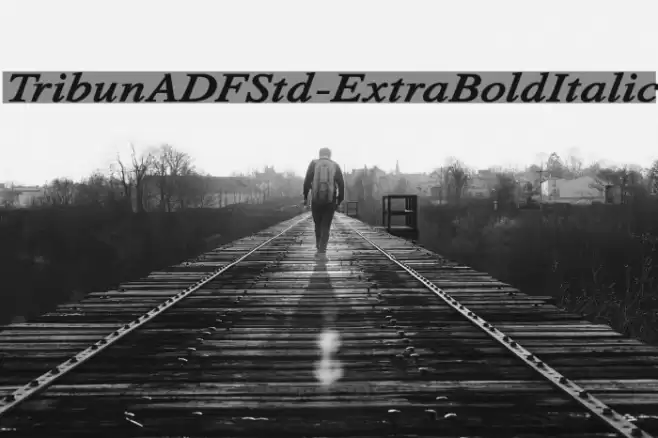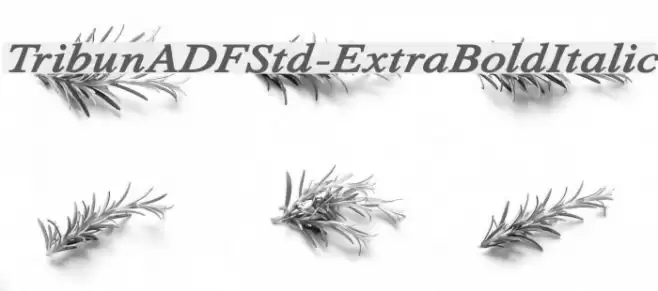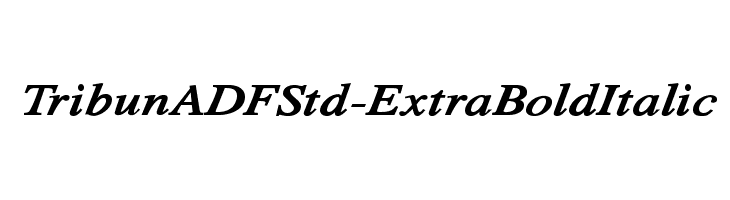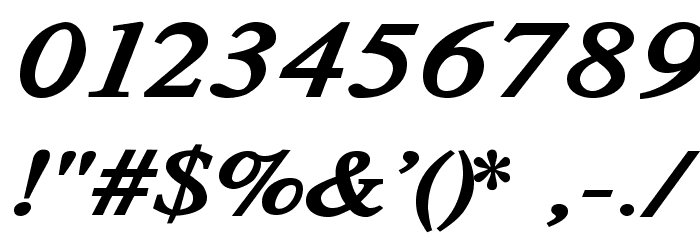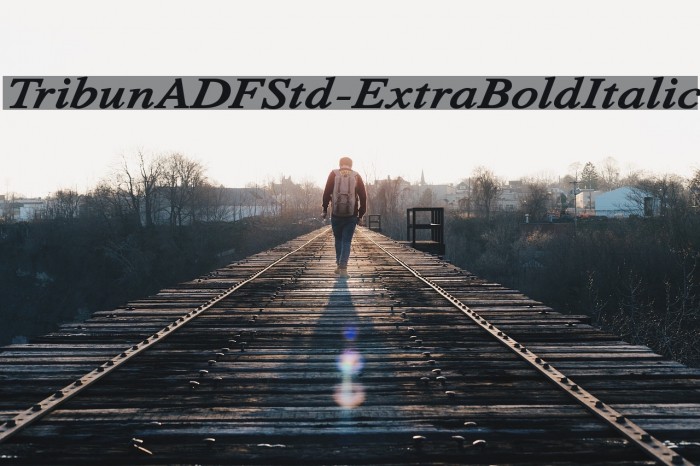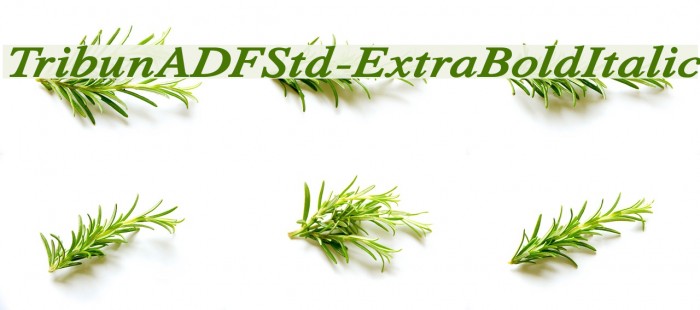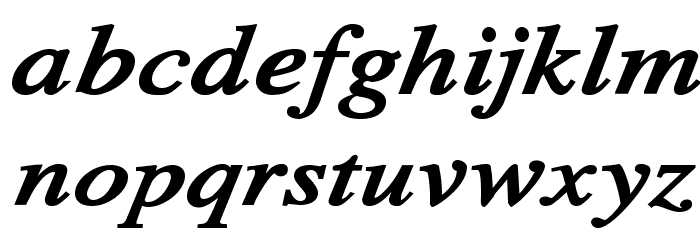
TribunADFStd-ExtraBoldItalic Font
TribunADFStd-ExtraBoldItalic Description
This font exhibits a bold and dynamic presence with its extra bold weight and italic style. The characters are well-defined with a slight slant, adding a sense of motion and elegance. The serifs are pronounced, contributing to a classic and authoritative look. The uppercase letters are strong and commanding, while the lowercase letters maintain readability with a touch of sophistication. The numerals are consistent with the overall boldness, ensuring clarity in numerical data. Special characters are distinct and harmonize well with the alphabet, making this font versatile for various applications.
A bold, italic serif font with a classic and authoritative style from Uncategorized fonts.
- Proposed Projects: Ideal for headlines, branding, editorial design, and formal invitations.
- Overall Style: Classic